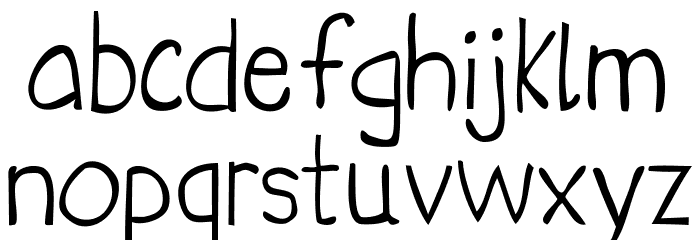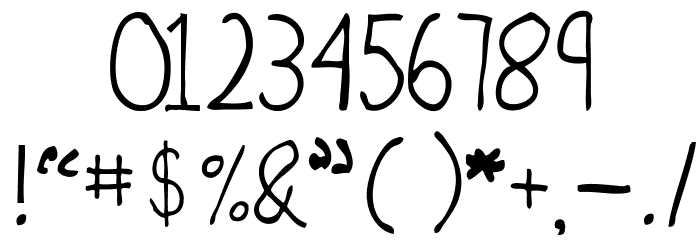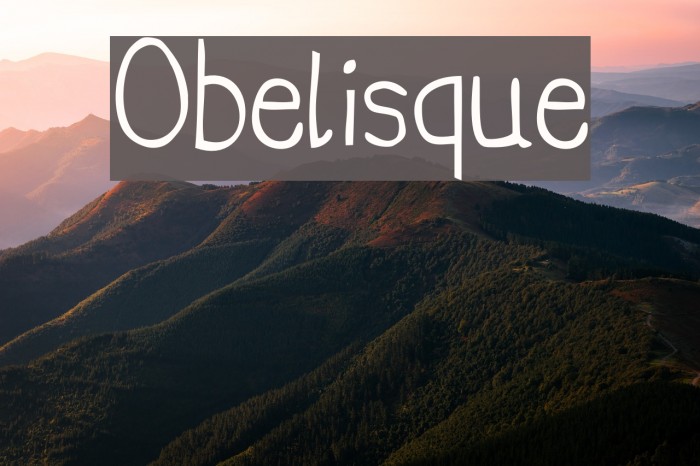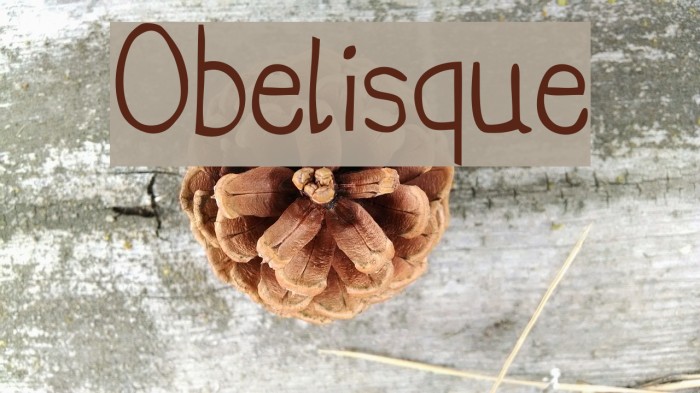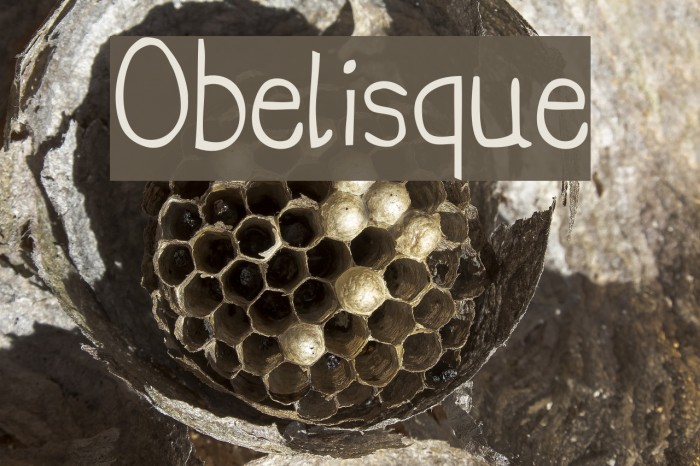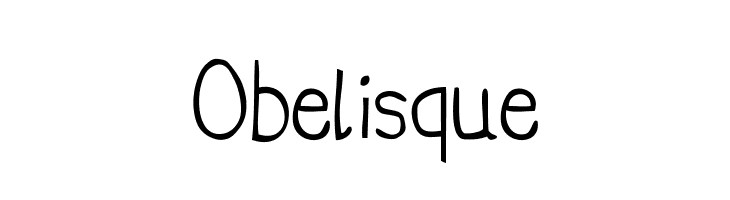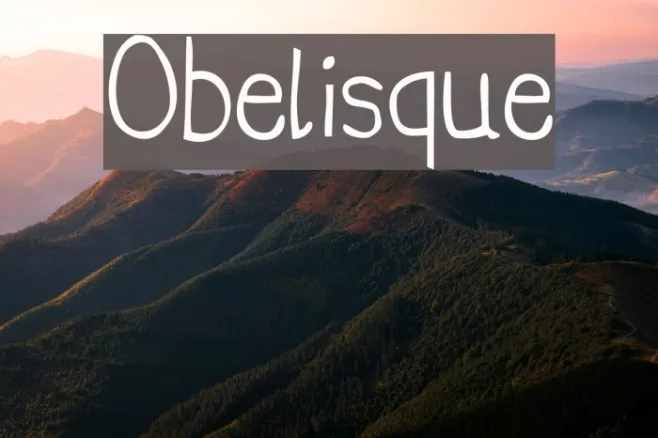
Obelisque Font
This font features a playful and casual handwritten style, characterized by its uneven strokes and organic flow. The uppercase and lowercase letters maintain a consistent height, giving it a uniform appearance despite its informal nature. The numbers and special characters follow the same whimsical design, making the font suitable for creative and informal projects. Its unique charm lies in the slightly irregular shapes, which add a personal touch to any text. The font's overall appearance is approachable and friendly, making it ideal for projects that aim to convey warmth and personality.
A playful, handwritten font with an informal and friendly style.
- Proposed Projects: Ideal for greeting cards, children's books, personal blogs, and creative branding.
- Overall Style: Casual, Playful
- Use Case: Headlines, Informal text, Creative projects